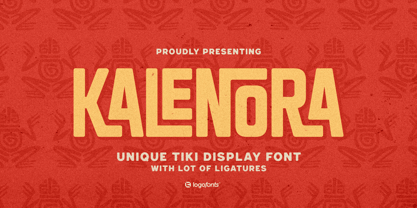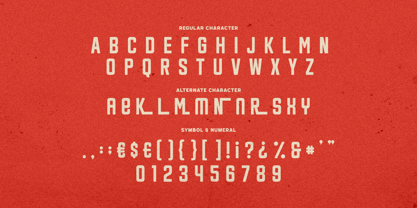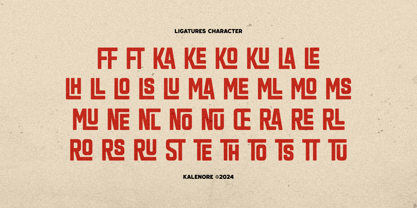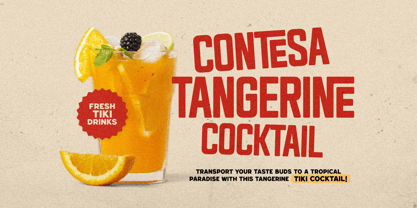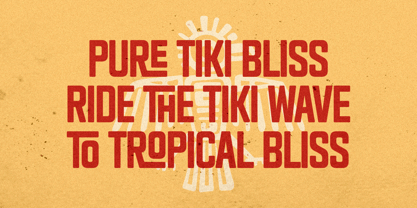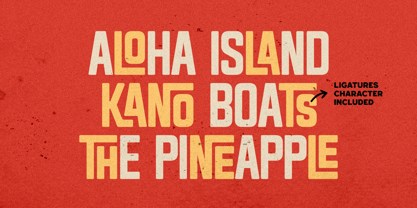
Kelenora
by Logofonts
The Kelenora Font Family was designed by Anna Safitri and published by Logofonts. Kelenora contains 1 styles.
Kelenora is a contemporary sans serif display typeface designed for bold, impactful typography. With clean, geometric lines and a sleek, minimalistic approach, this font exudes modern elegance. Its high contrast and strong presence make it perfect for large-scale headlines, branding, and digital use where clarity and style are paramount. Each letterform is crafted with precision, balancing readability with visual flair, making Kelenora ideal for everything from fashion and tech to editorial and advertising designs. Whether used in print or on screen, it commands attention while maintaining a sophisticated, refined aesthetic.
Designers: Anna Safitri
Publisher: Logofonts
Foundry: Logofonts
Design Owner: Logofonts